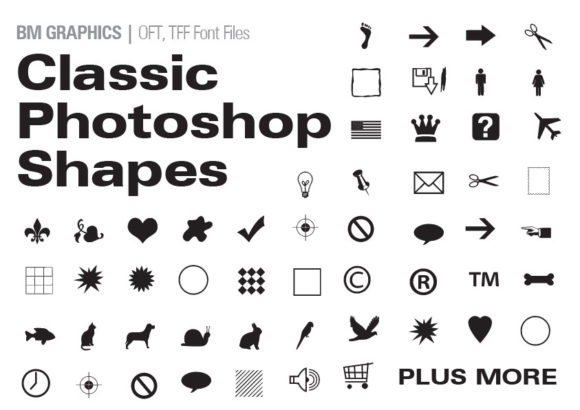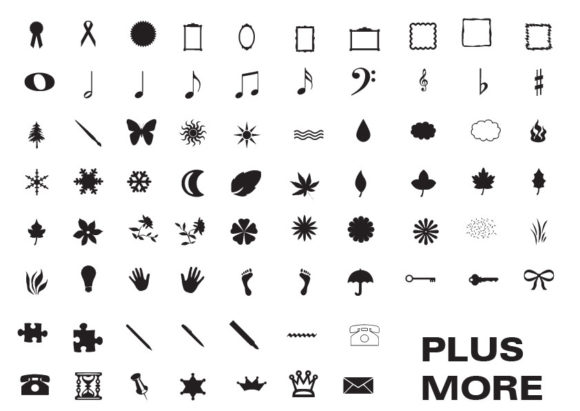
Classic Photoshop Shapes Font
Classic Photoshop Shapes is a fun and useful dingbats font. No matter the topic, this font will be an incredible asset to your fonts’ library, as it has the potential to elevate any creation.